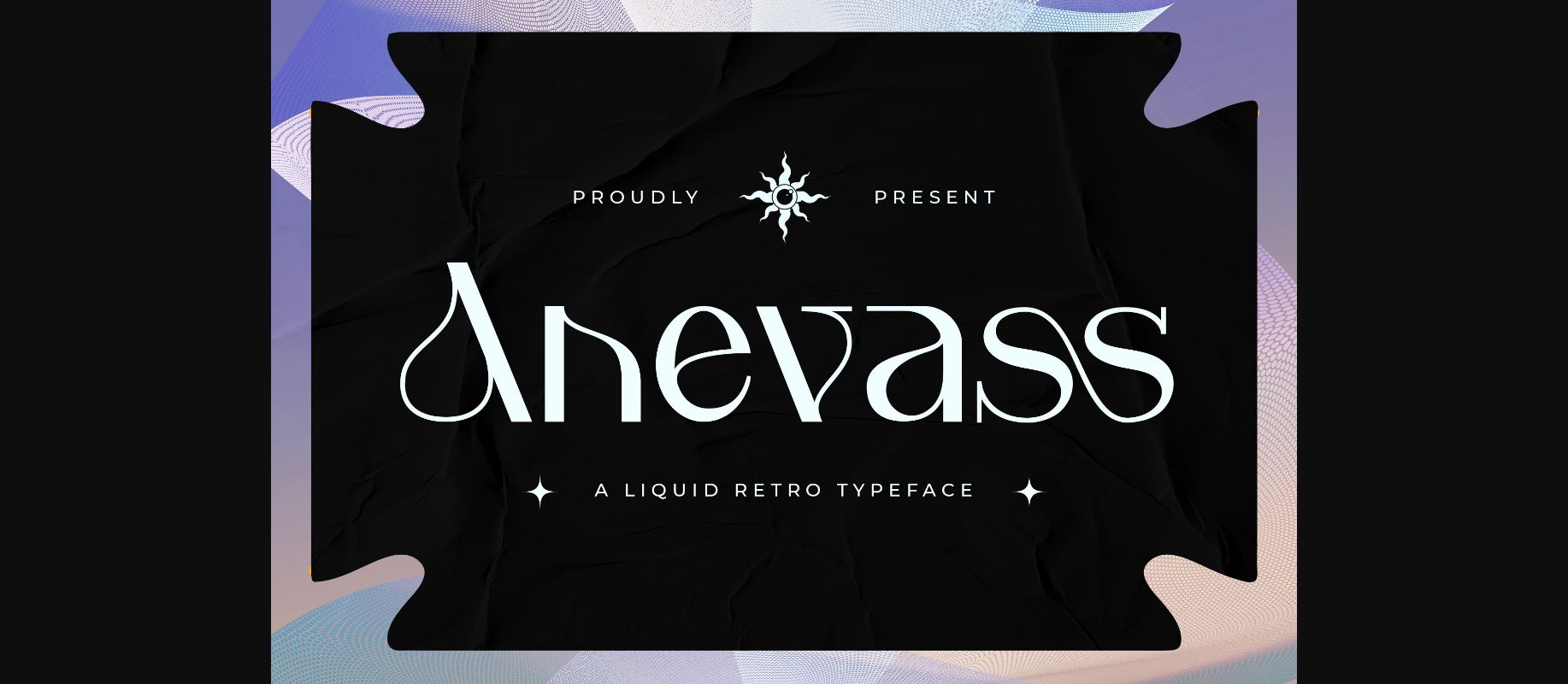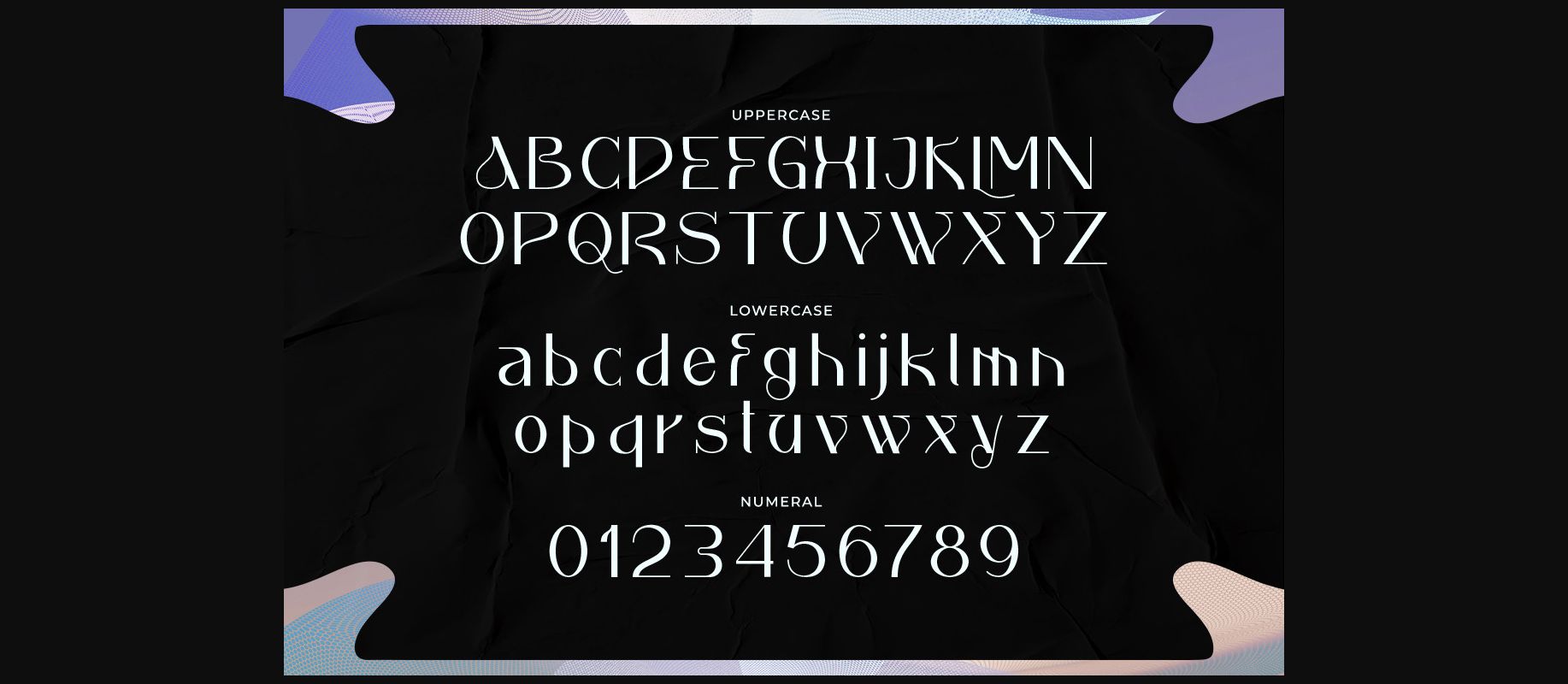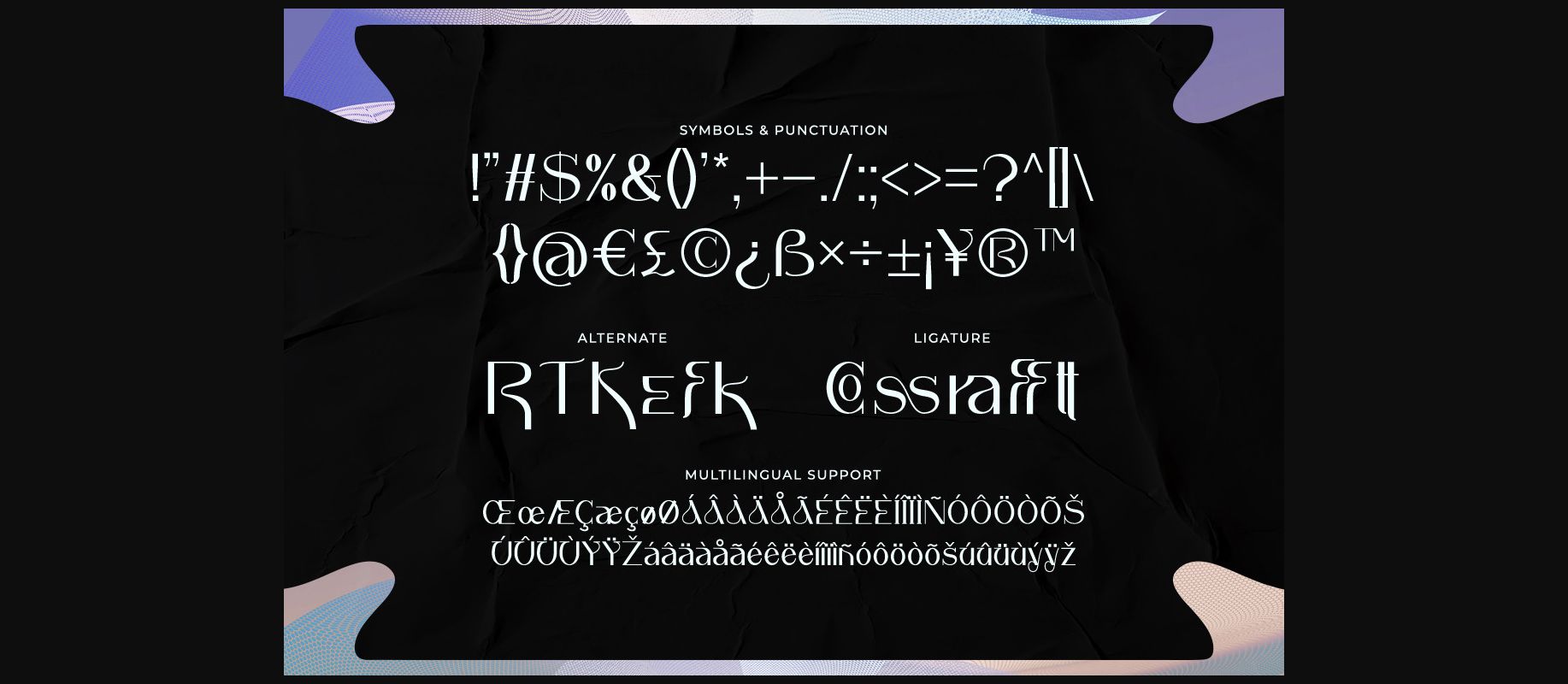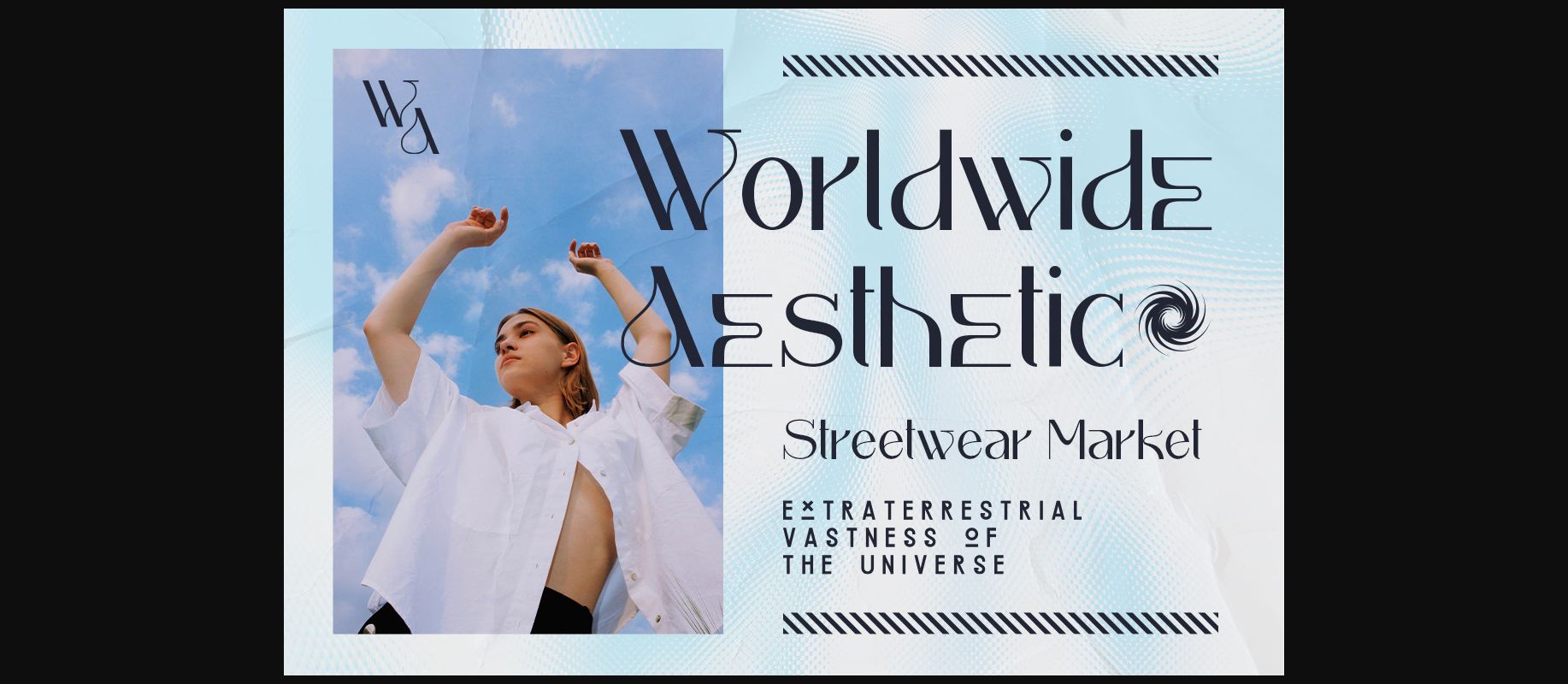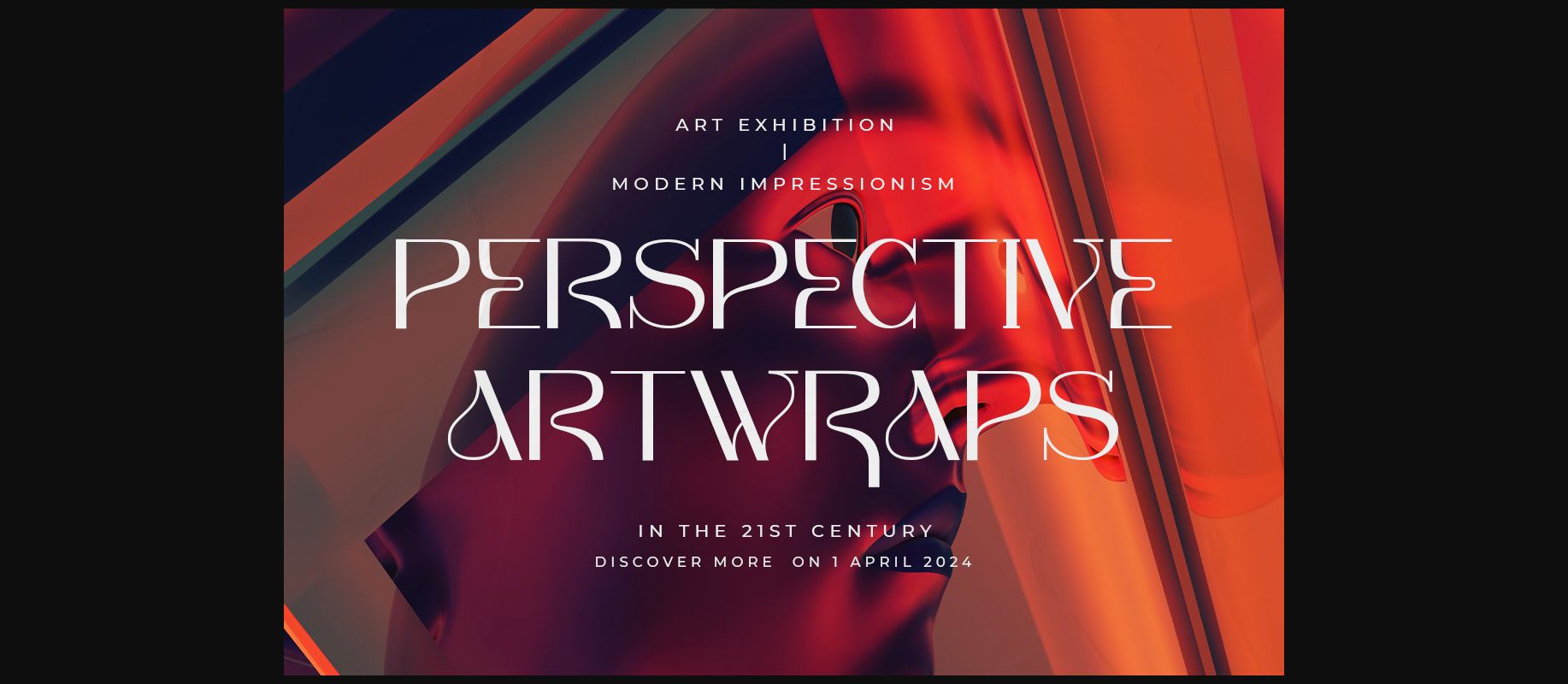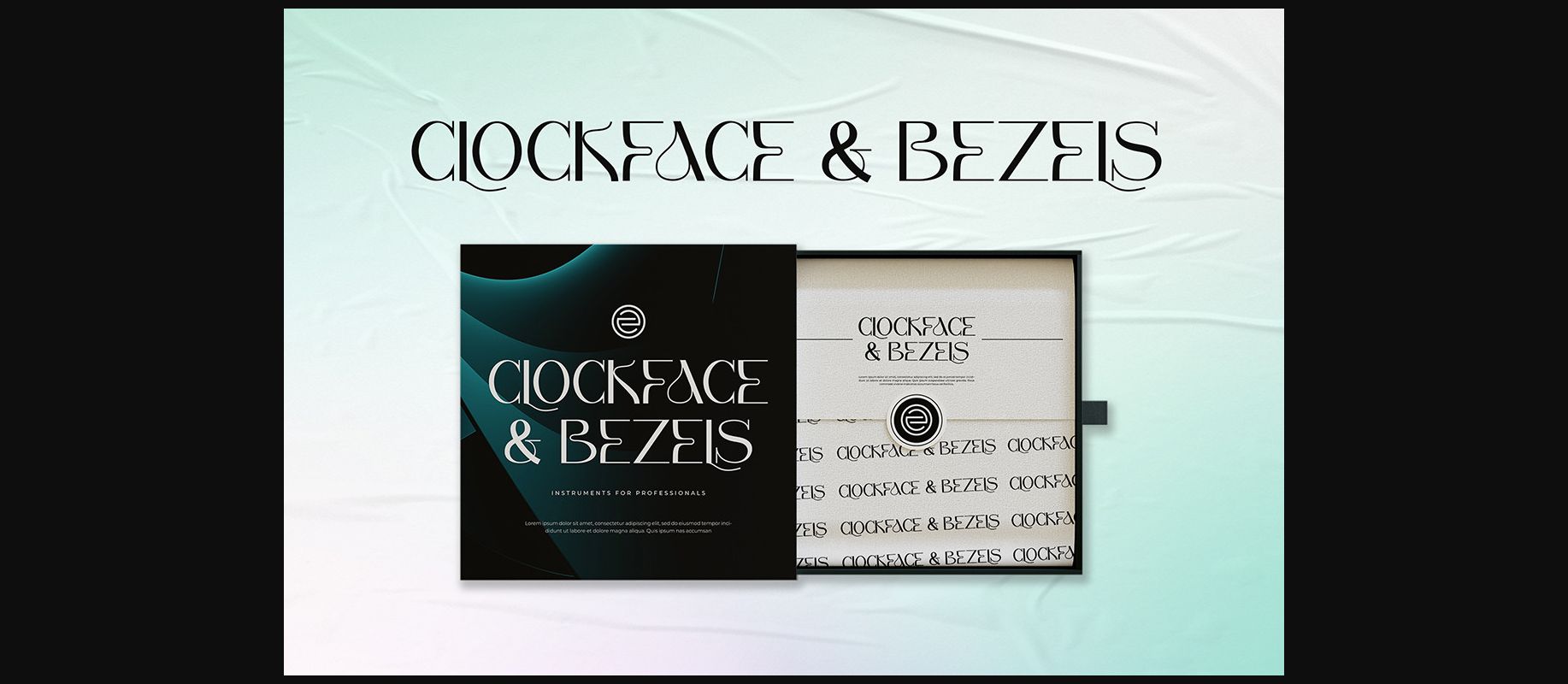
Anevass Font
About Anevass Font
Anevass is a liquid retro typeface, a dynamic font that is perfect for anyone looking to add a touch of retro style to their designs. This typeface features a unique liquid design that is sure to make your text stand out from the crowd.
Anevass is a versatile font that can be used for a wide range of projects, from branding and logos to packaging and posters. Its elegant style is perfect for anything that needs a little extra personality.